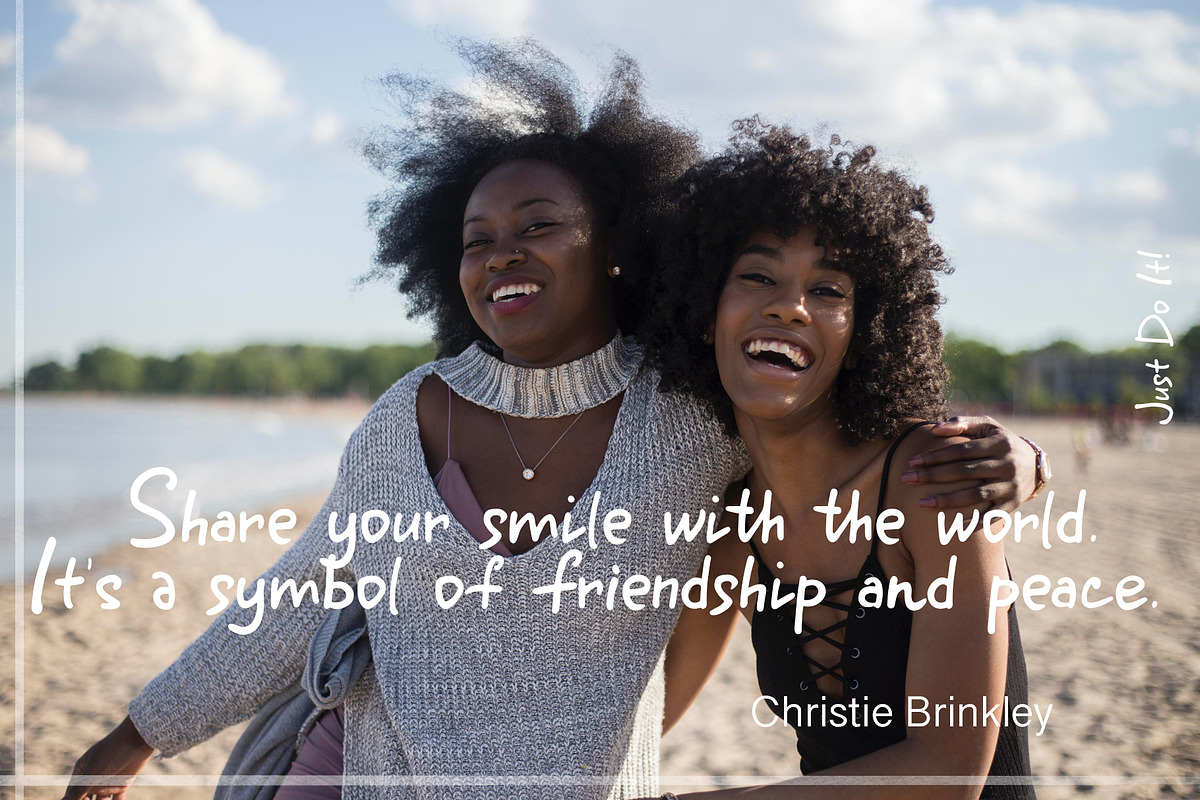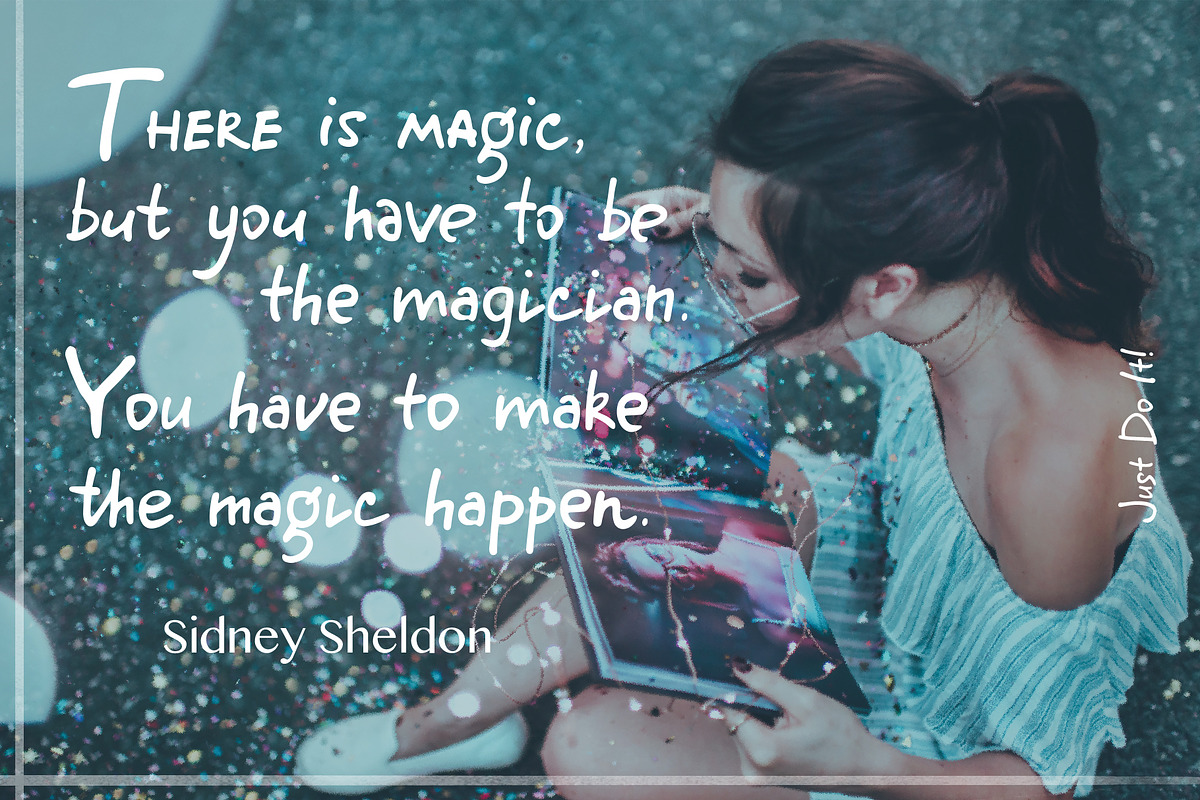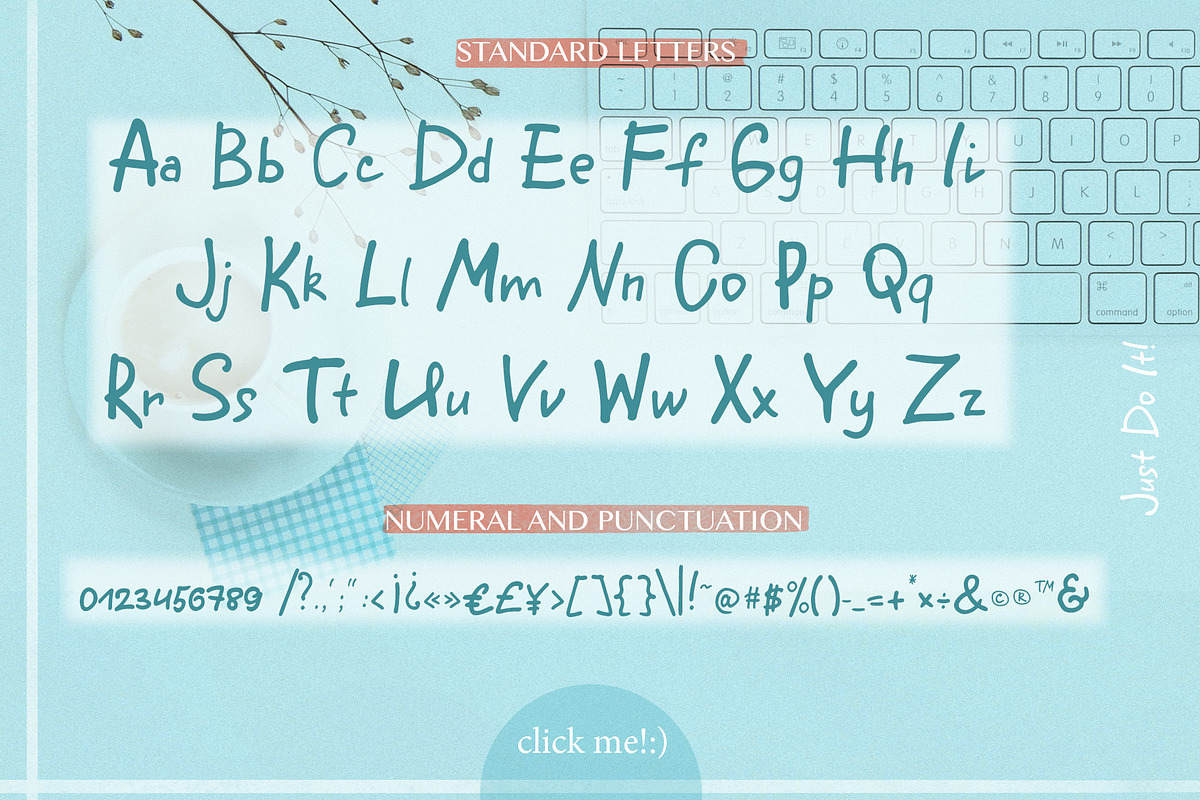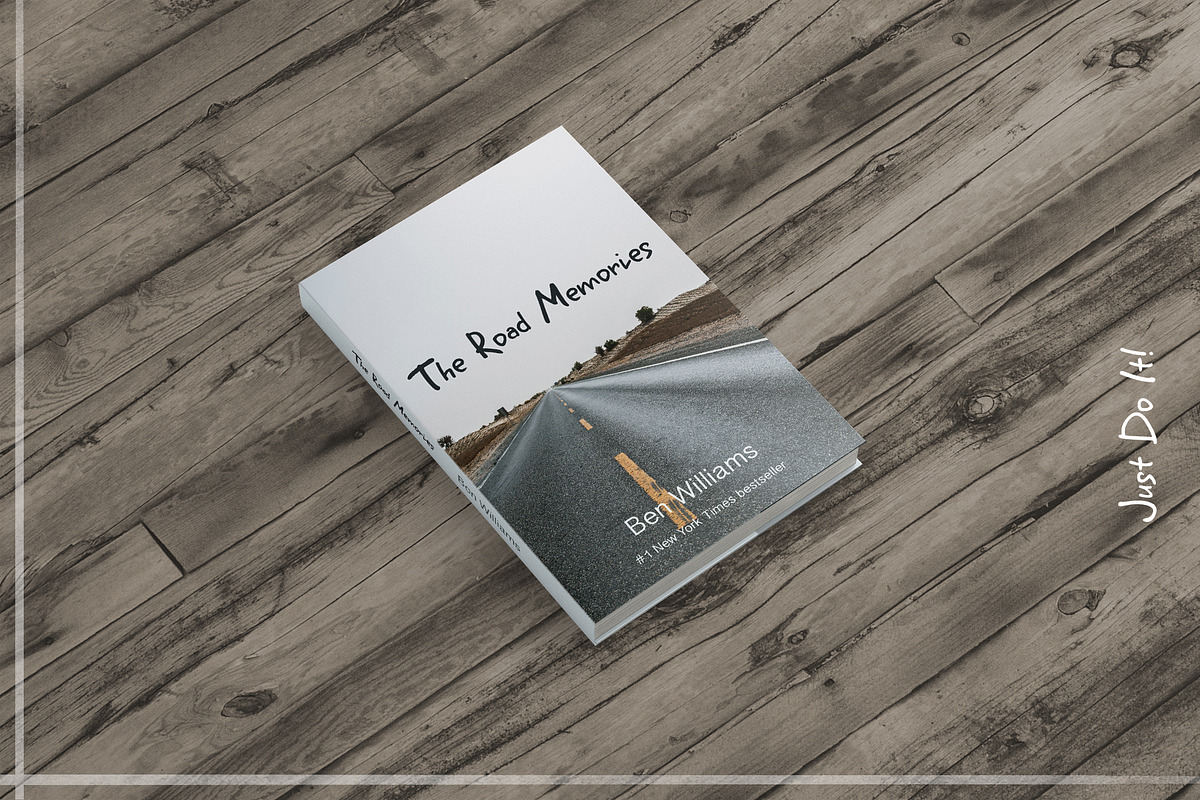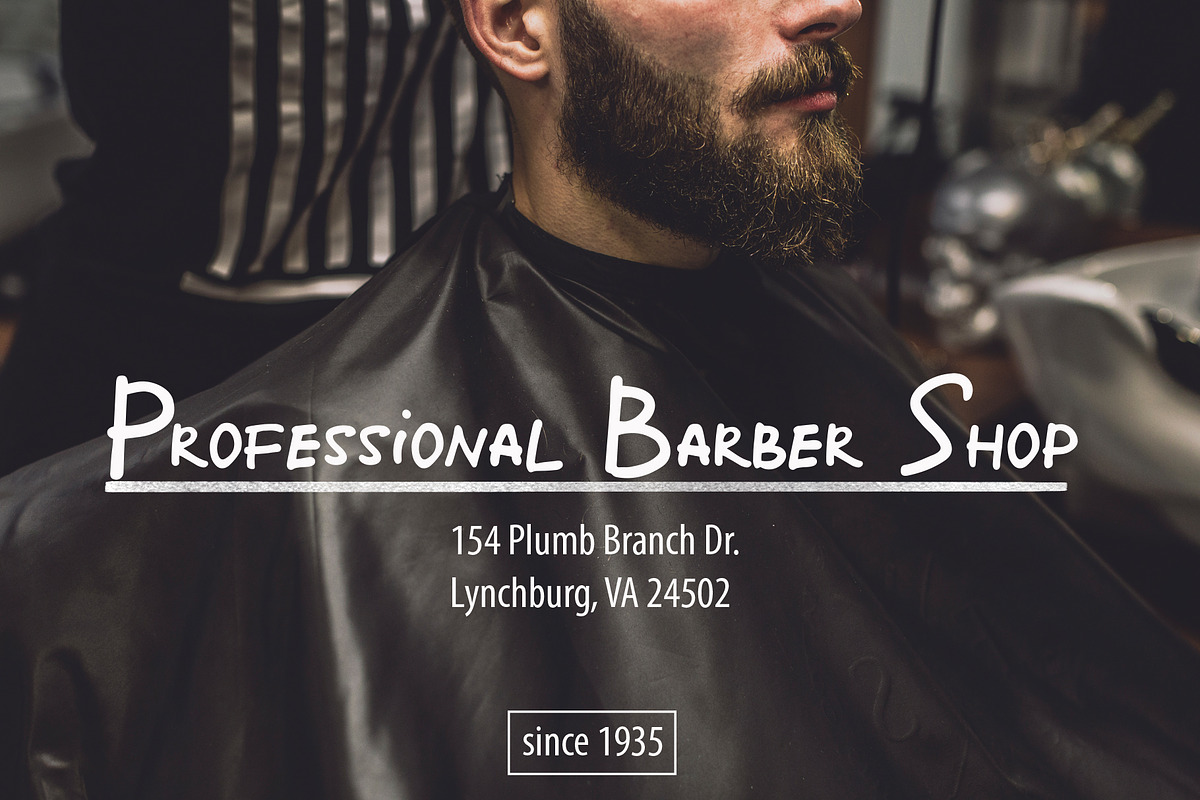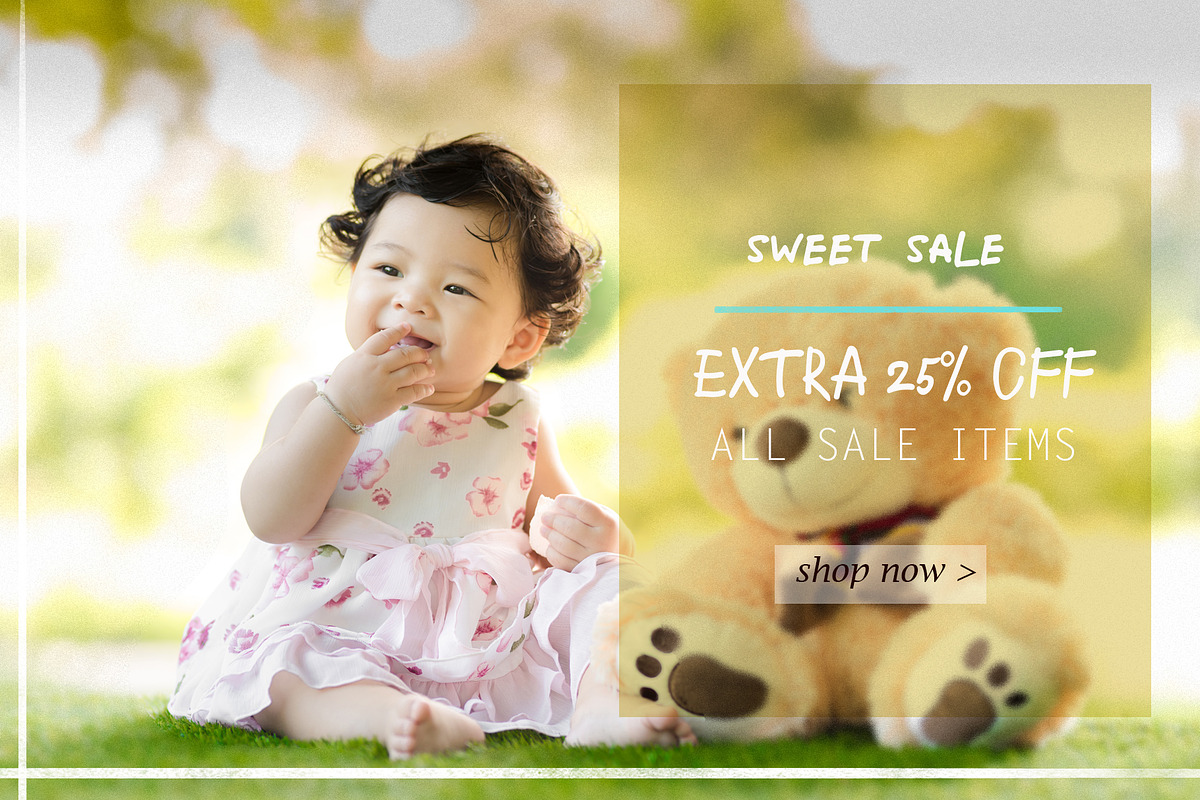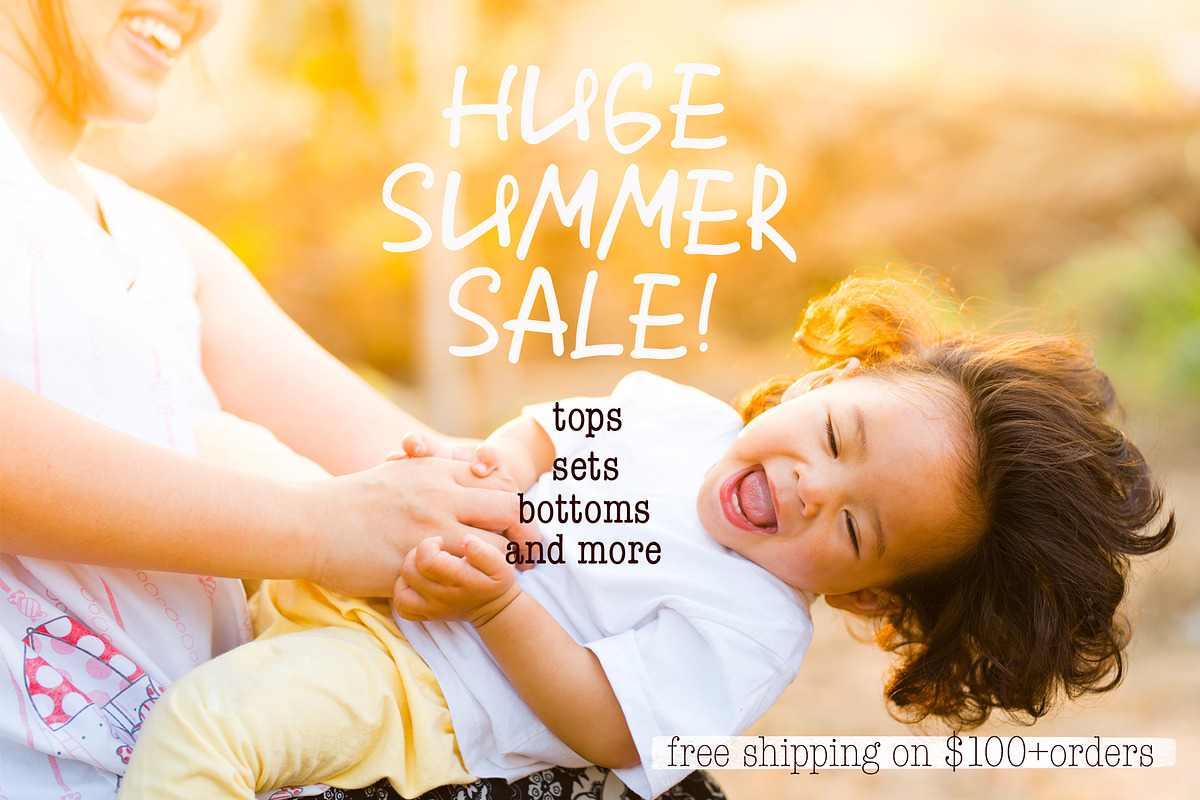
Just Do It!
Help others achieve their dreams and you will achieve yours, as Les Brown said.
We can accomplish anything, so let’s Just Do It!
I want to present to you a new freedom-loving and confident triple font. It includes two sets of alternates, also - ligatures, numbers, punctuation and supports a lot of languages. You can use this positive font for any kind of creative projects: headings, mood boards, book’s and magazine’s covers, branding materials, greeting cards, logos and any other! Have fun!